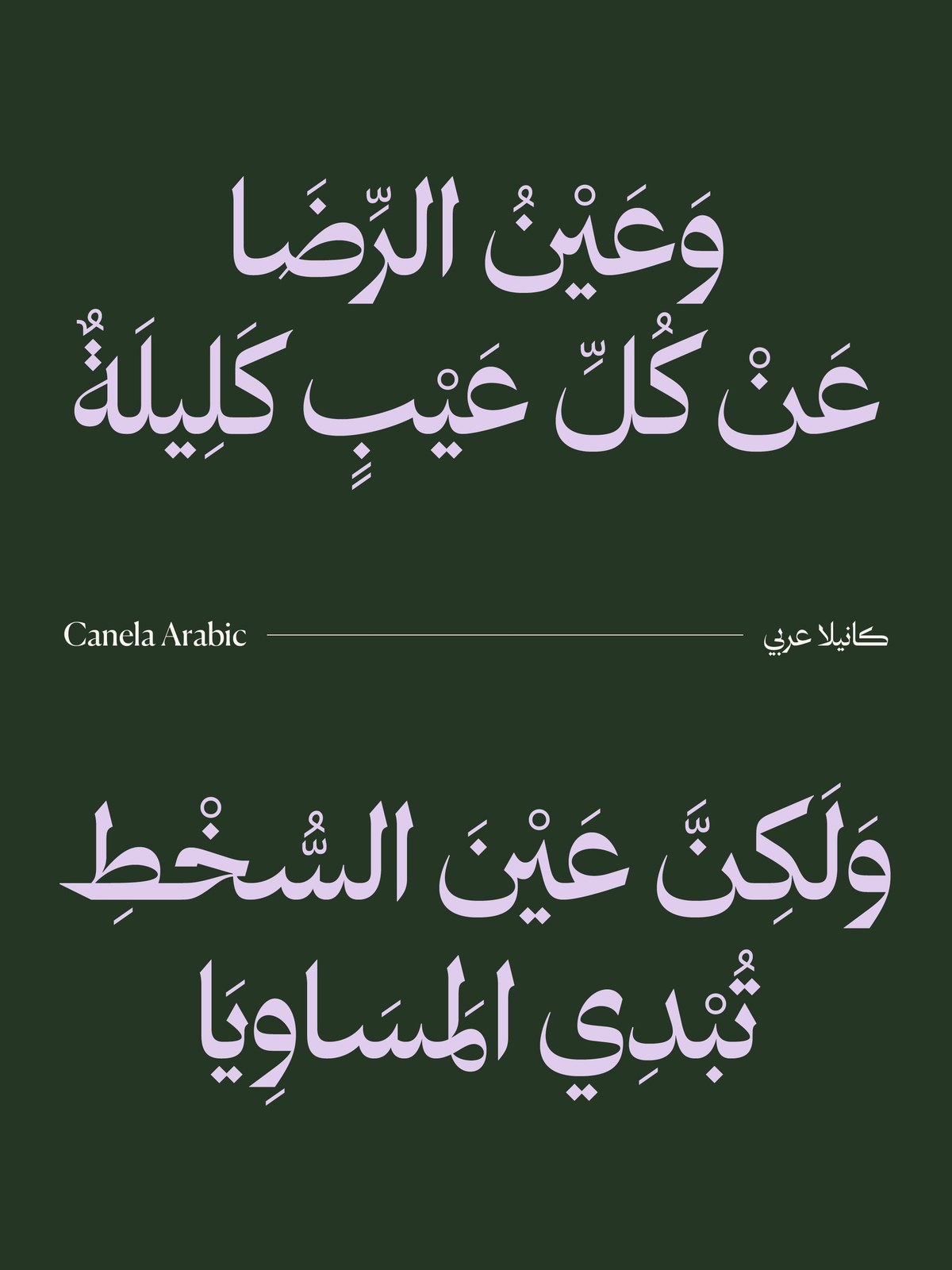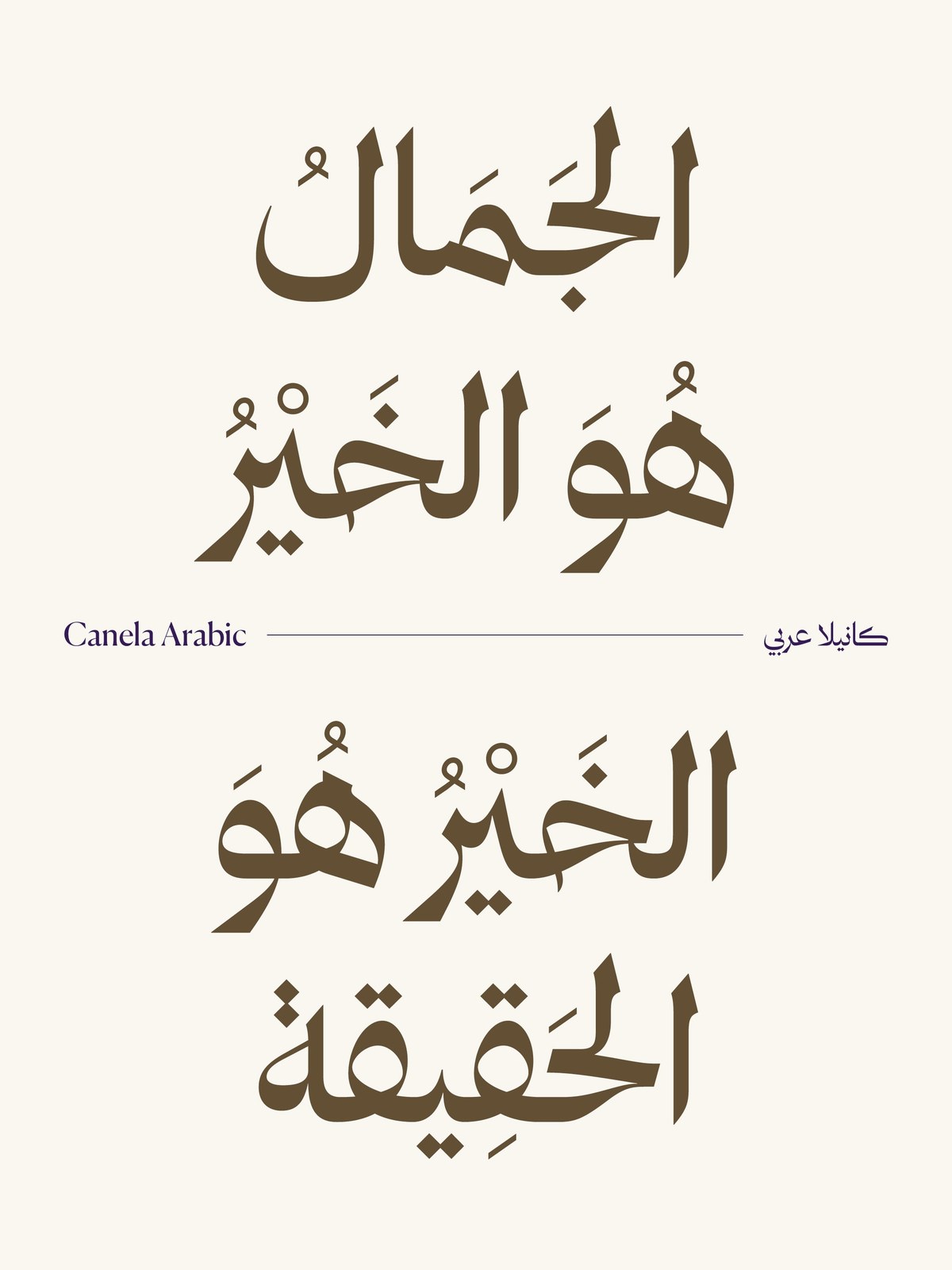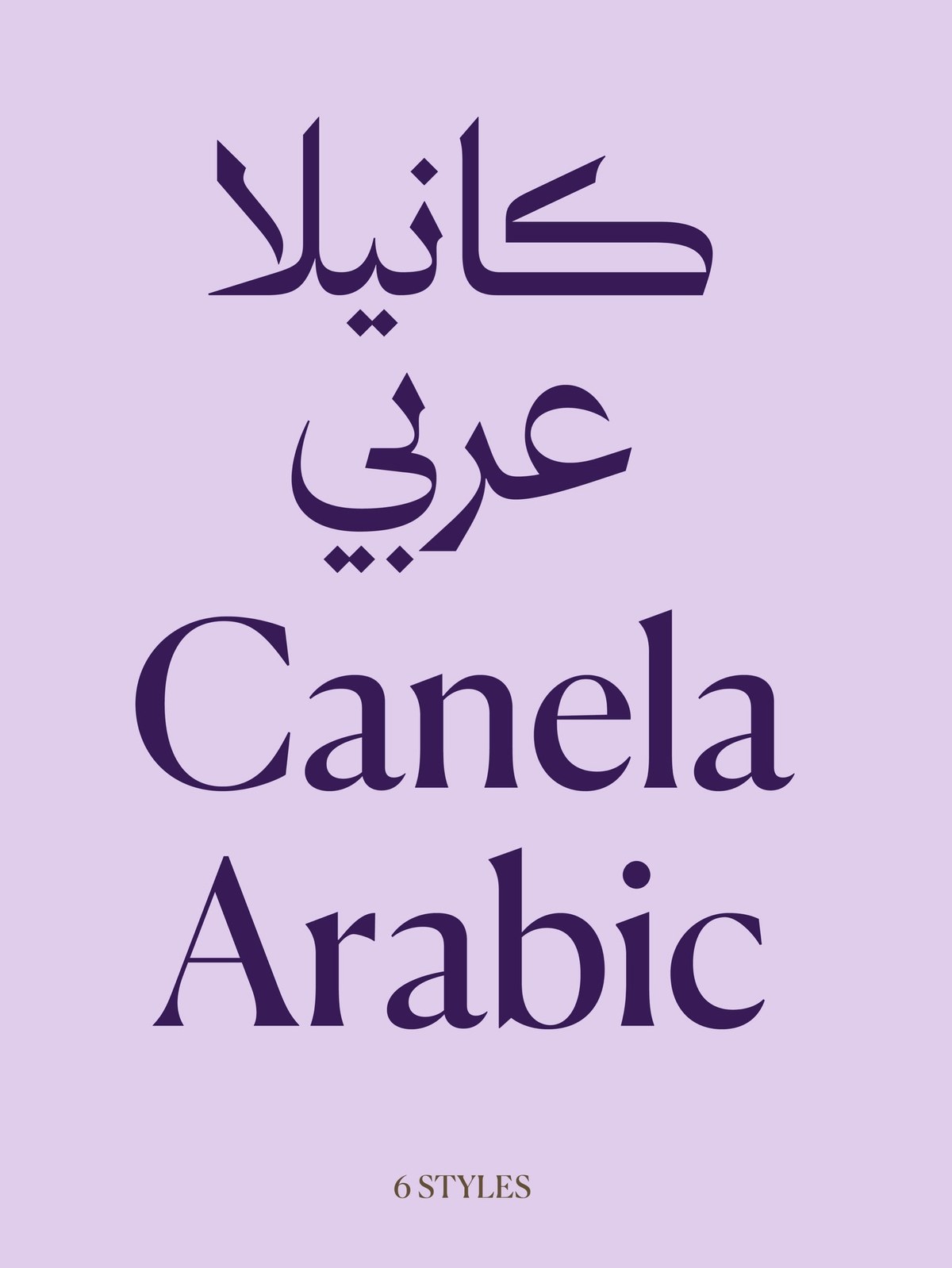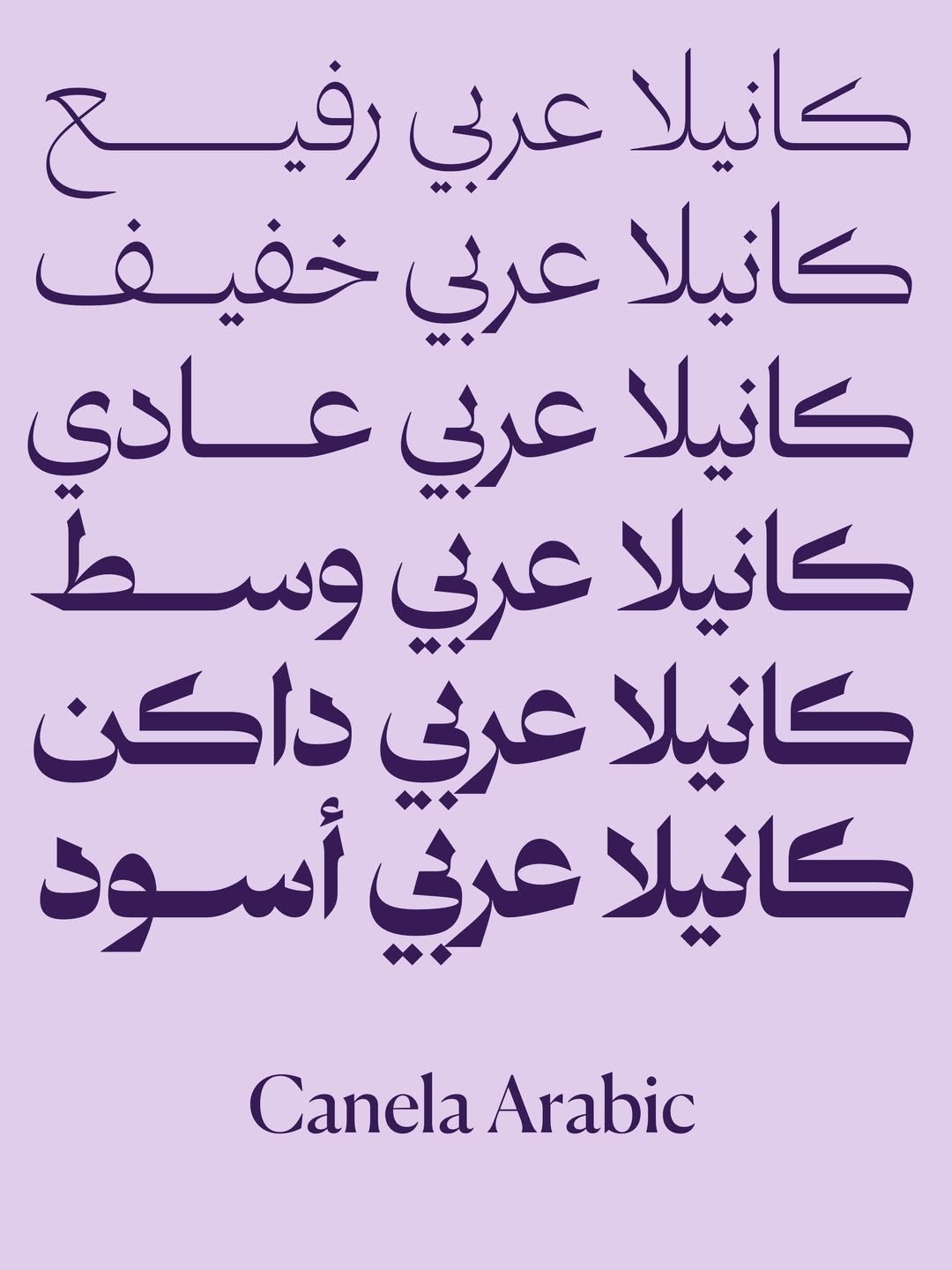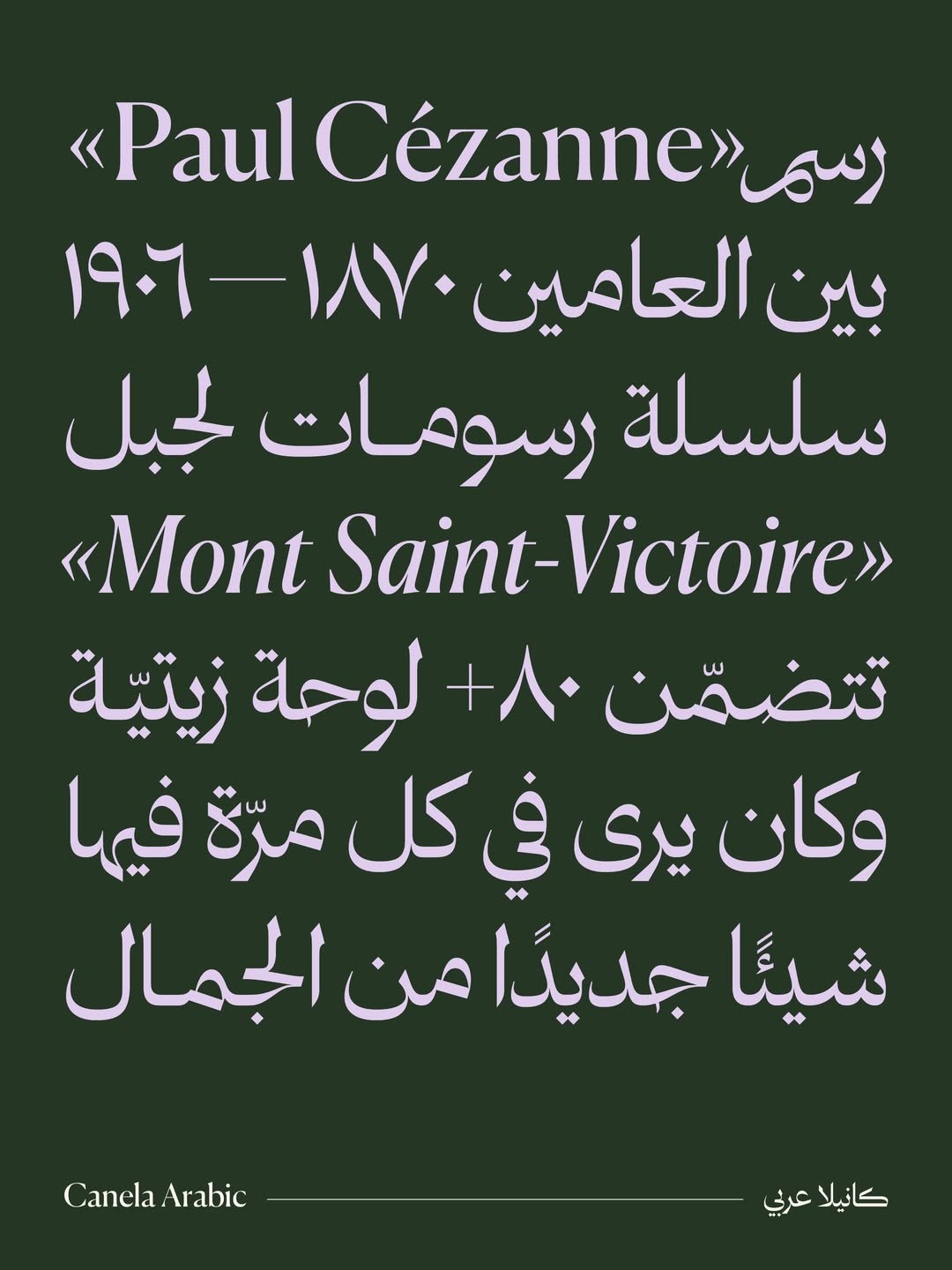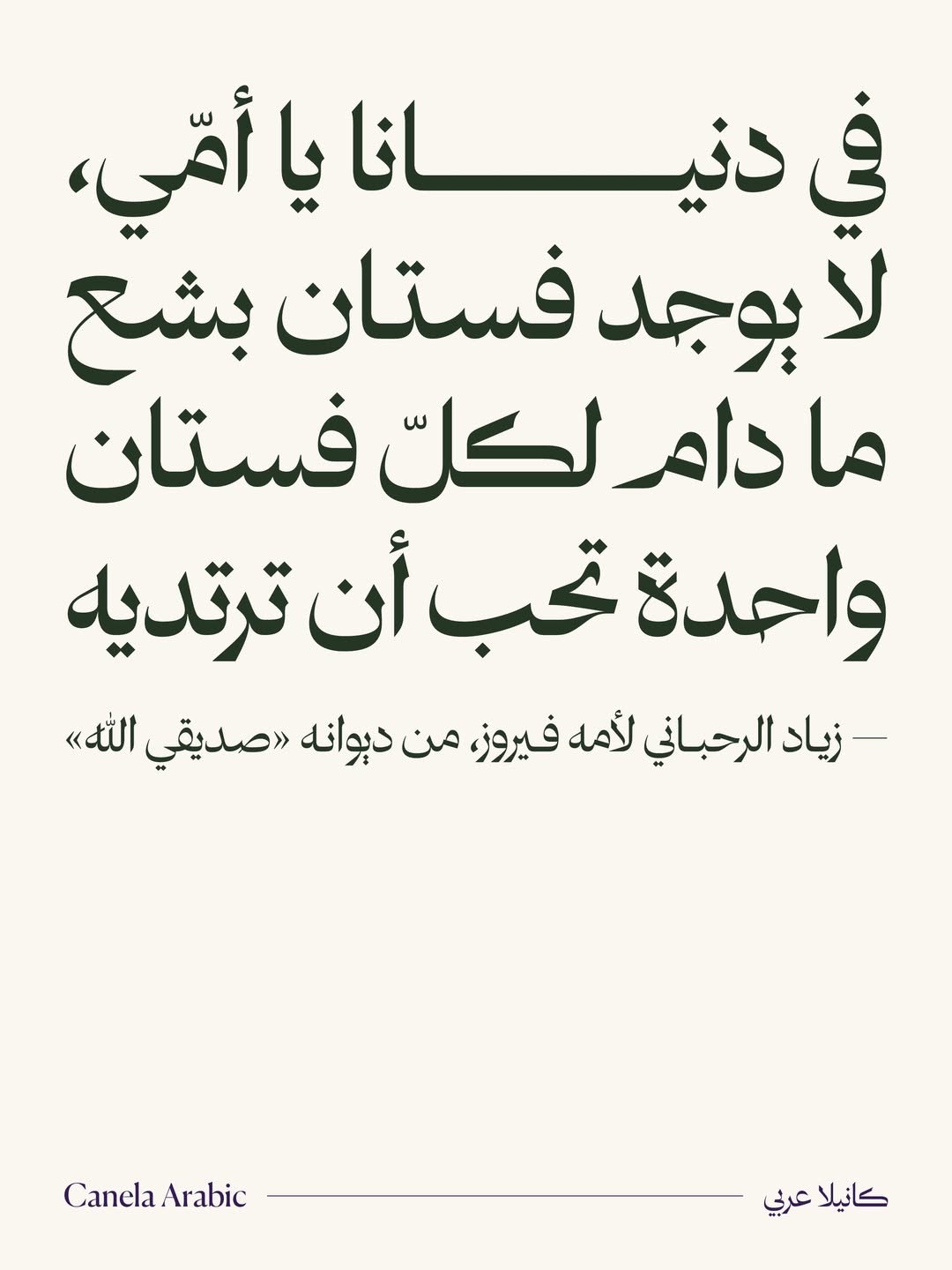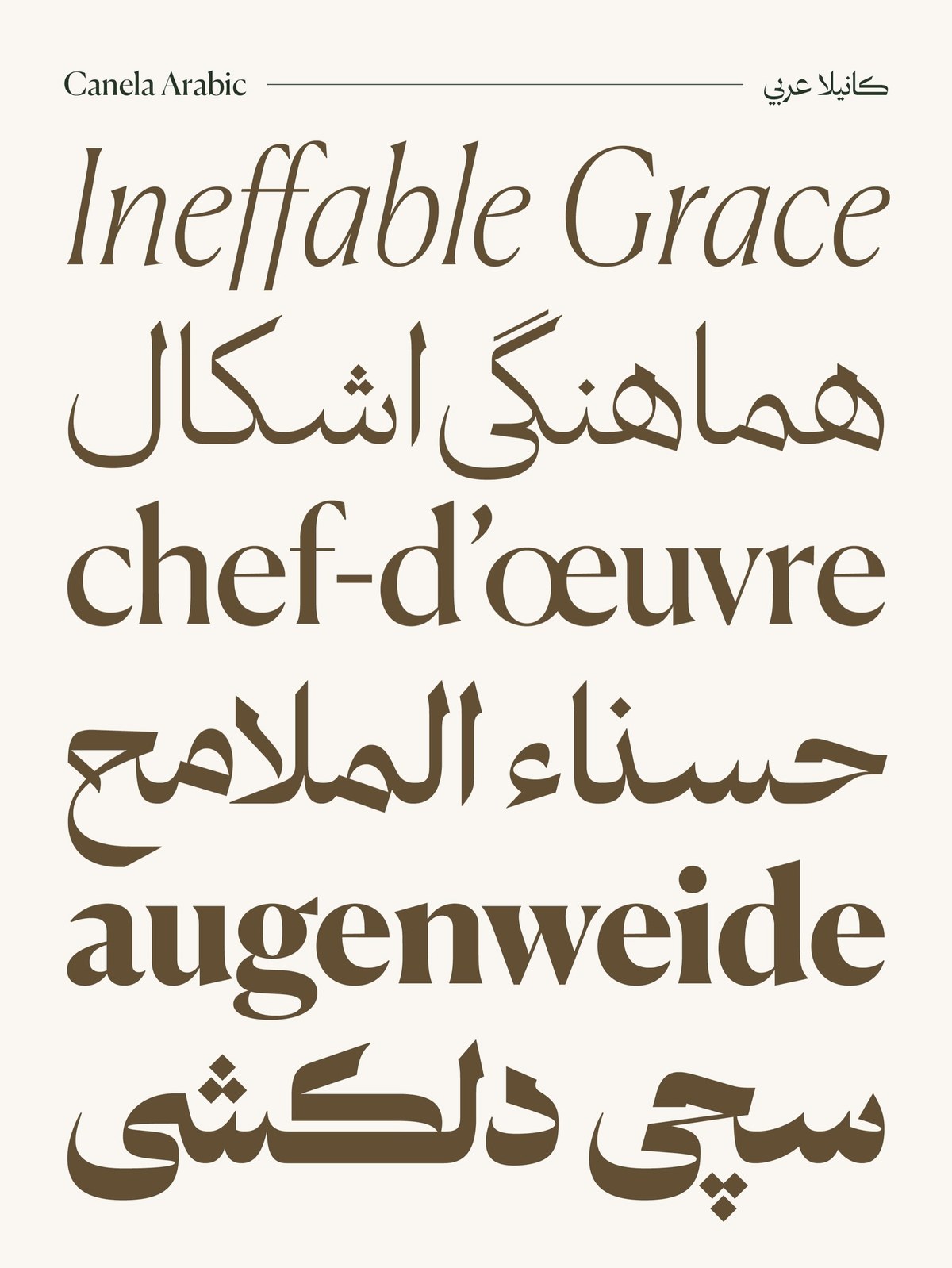
Canela Arabic
Canela Arabic, drawn by Khajag Apelian and Wael Morcos, expands the crisp elegance of Miguel Reyes’s Canela by taking inspiration from both the Thuluth and Naskh traditions. Though it reflects the sobriety and refinement of its Latin counterpart, the Arabic version has a distinct and expressive presence all its own. As with Miguel’s original Latin family, Canela Arabic’s beauty lies in its proportions, delicate transitions in weight, and precise detailing rather than in calligraphic swashes.